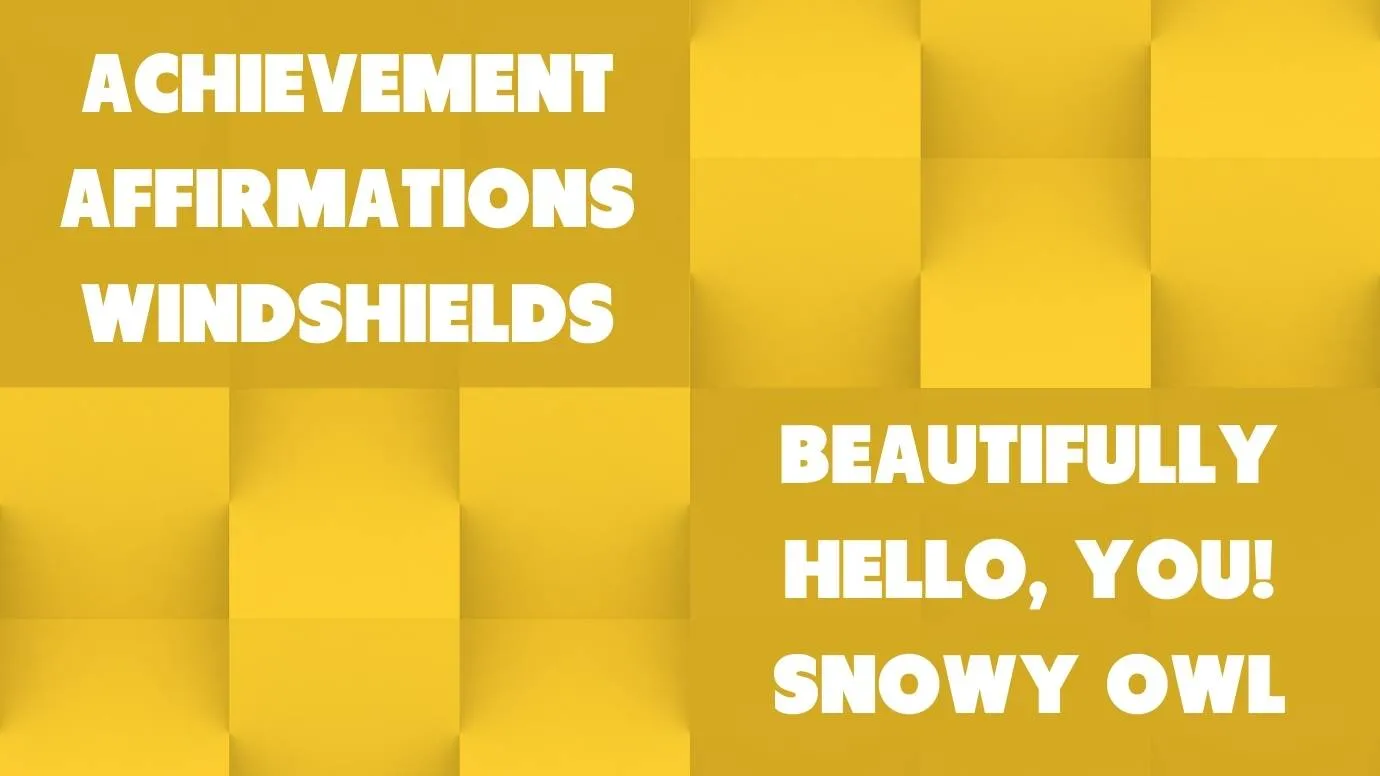
This typeface belongs to the Sans Serif family. It is a display typeface font. Tondu font is copyright for Jonathan Hill. It is released by The Northern Block.
This is a multi-purpose font that associates some classic sizes with modern style. Many designers use this font to complete their designs due to its flexible style. It is used in various fields due to its simplicity and design ability.
This font has 490 characters, one heavyweight, and a set of 870 glyphs. This font also has two styles. It is similar to the Gentona Font. Due to its clean and outstanding ability, this font is used in big design projects.
You can use this font in logo design, presentation, packing, business cards, design projects, visiting cards, photography, book cover designs, Titles of the articles, headlines, banners, posters, websites, and many other works.
Creator of Tondu Font
Jonathan hill created this unique and stylish font. This font is released by The Northern Block.
This attractive and stylish font has unique 490 characters like small and Capital alphabetic, special characters, symbols, numbers, glyphs, and supports many languages.
It can support up to 85+ languages.
What is Tondu Font similar to?
This font is similar to the Rockstar Font. You can make different designs through this font.
Is Tondu a Sans Serif font?
Yes, This is a San Serif font. You can use this font in making the book titles, Newspaper Headlines, and Invitation cards.
Can I use Tondu Font in a logo?
Yes, You can use this font to make attractive and stylish logos. You can also use this font on websites.